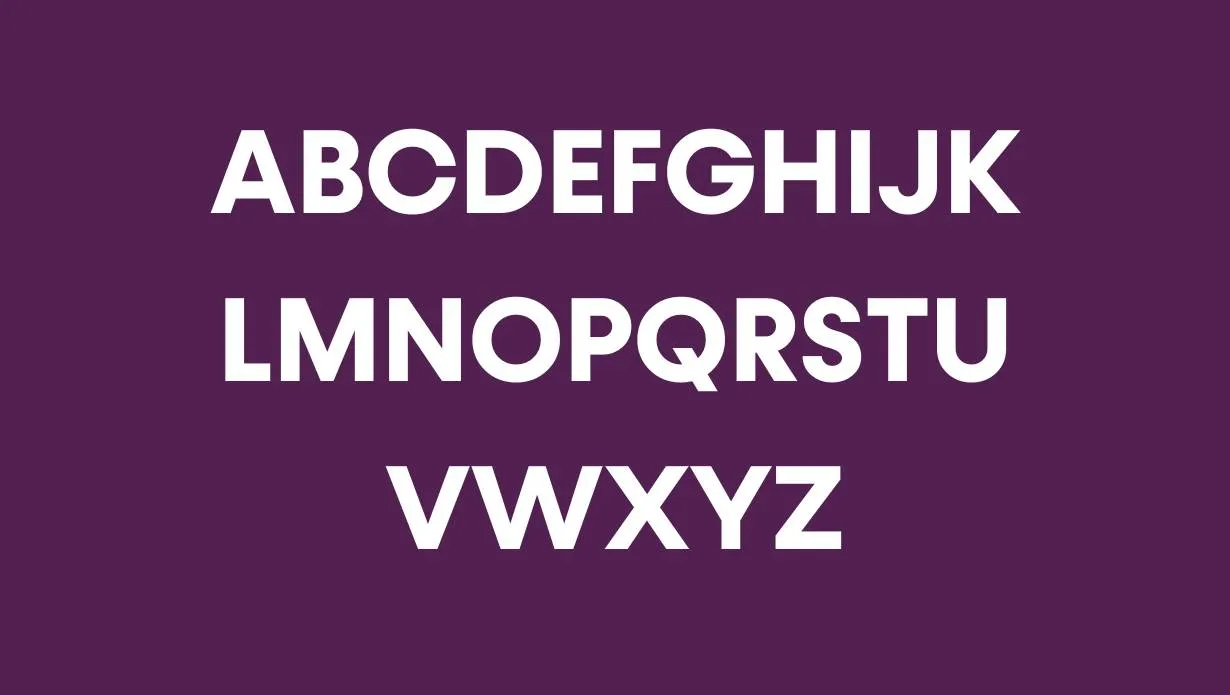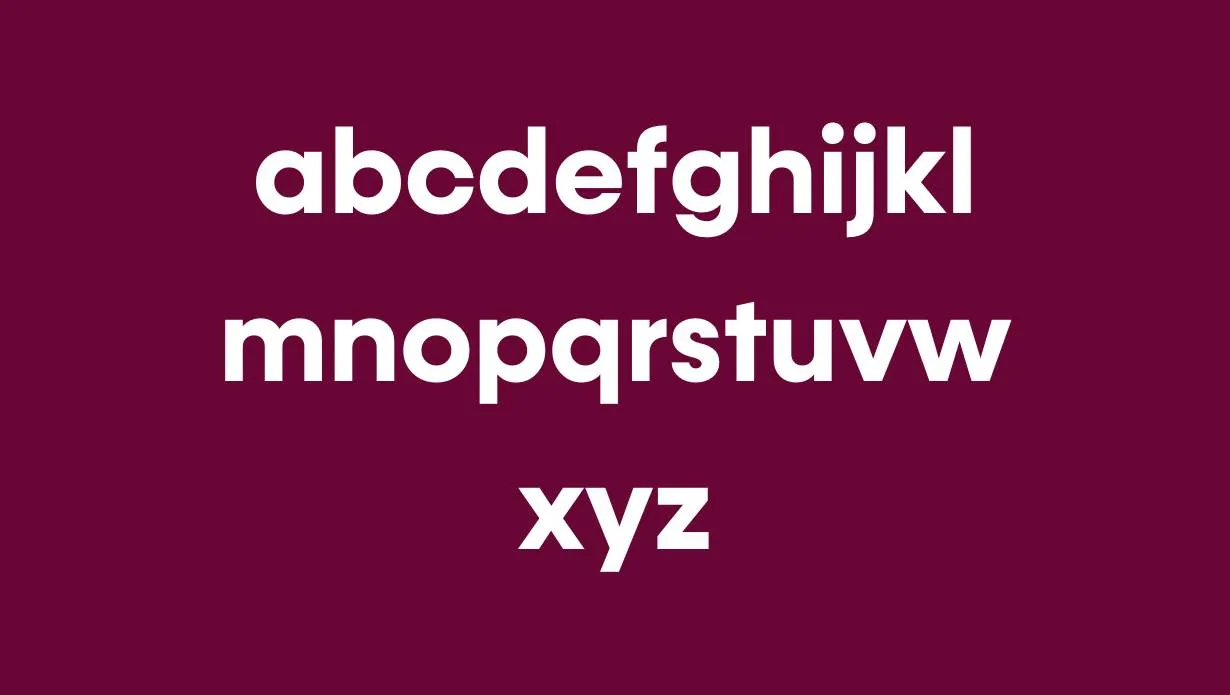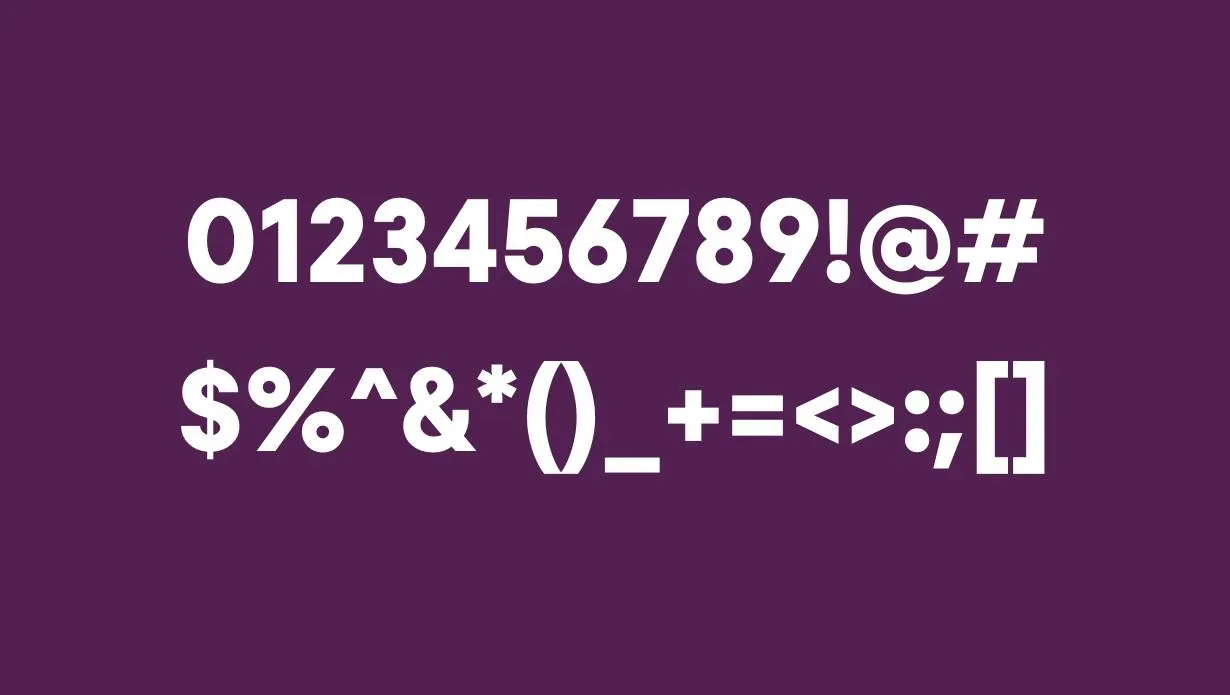
Konnect Font is a geometric Sans-Serif texture with a contemporary and playful character style. This typeface was commissioned by Adam Ladd. You can utilize this typeface for prominent headlines, titles, and subheadings.
The simple and elegant look of this typeface gives an appealing graphical rhythm to your project. If you want to taste the utmost success pair it with egyptian font.